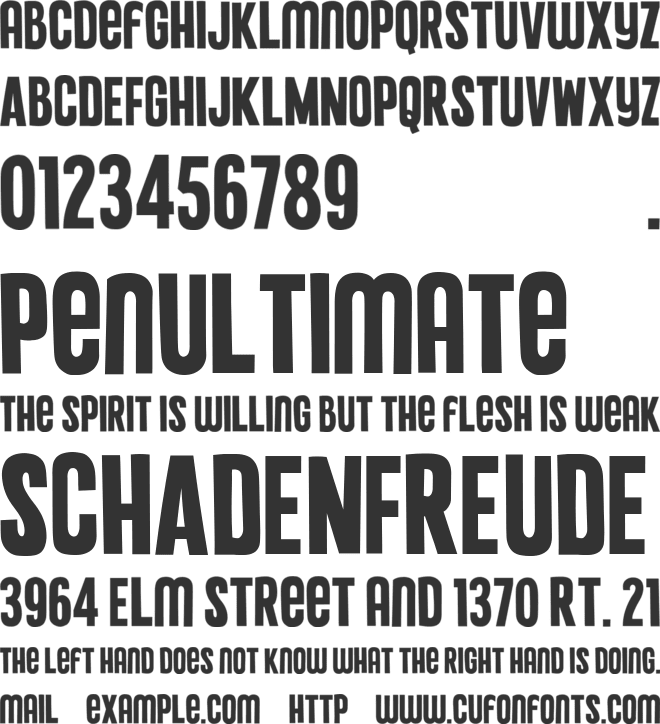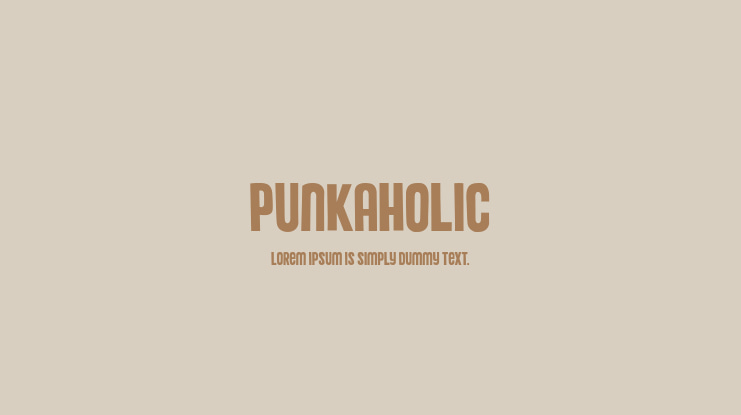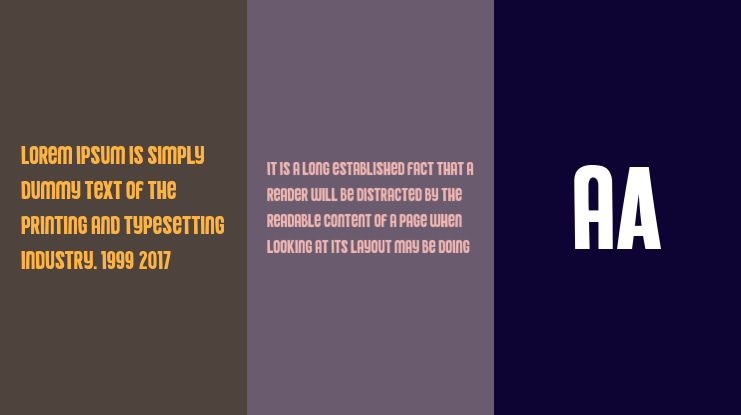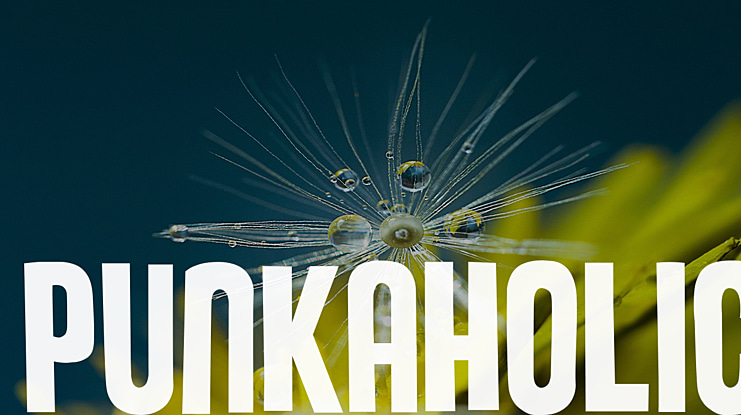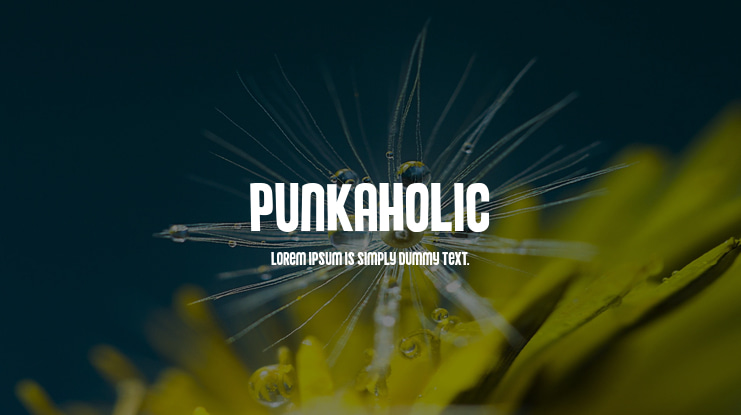
Punkaholic Font Family
Designed by Dennis Ludlow 01/28/2022
Punkaholic started out as a loopy all caps display font with a semi condensed feel. Before completion some of the letters such as A and W were given a more traditional look and were penciled in for alternates. In the end, however, they were added as uppercase characters instead. For this reason most words in lowercase vary in appearance from their uppercase counterparts. This dichotomy between straight lined capitals and rounded ones makes for some interesting contrasts. Punkaholic works best in less formal settings such as cafe menus, t-shirts, or children’s publicatons. It comes in 3 styles and contains Latin, extended Latin, punctuation, and kerning. The demo version contains Basic Latin only.